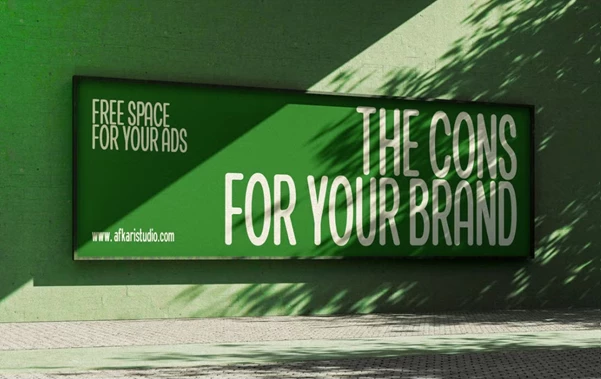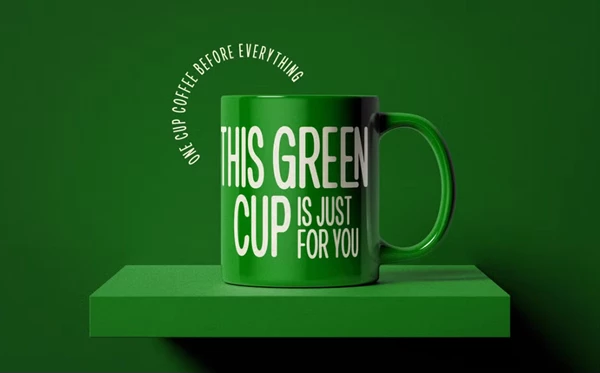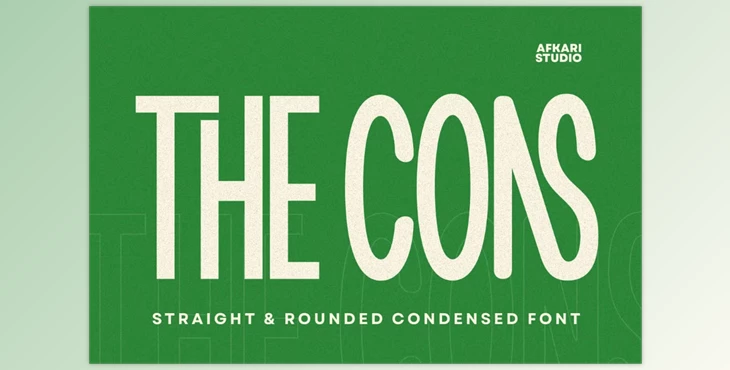
The Cons - Condensed Sans Serif Display Font:
The Cons - Condensed Sans Serif Display Font offers a bold yet compact typographic experience that empowers designers to make a big statement in small spaces. Perfect for eye-catching headlines, magazine layouts, and modern branding efforts. This typeface is as versatile as it is effective, providing the intended impact without sacrificing clarity and professionalism.
Some great features of The Cons - Condensed Sans Serif Display Font:
- Uppercase, Lowercase, Numbers & Punctuation
- Special Alternates & Ligatures
- Multilingual Support: ä, ö, ü, Ä, Ö, Ü, ß, ¿, ¡
- Make a bold statement in small spaces with The Cons!